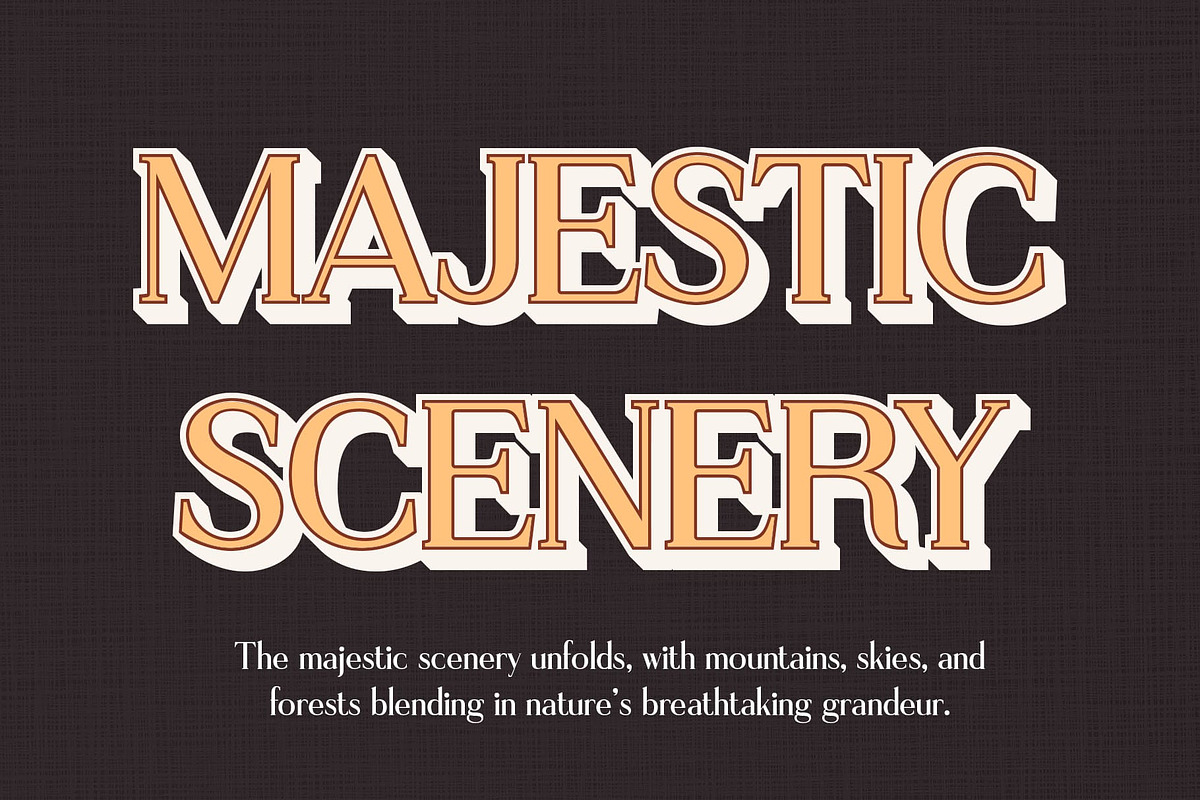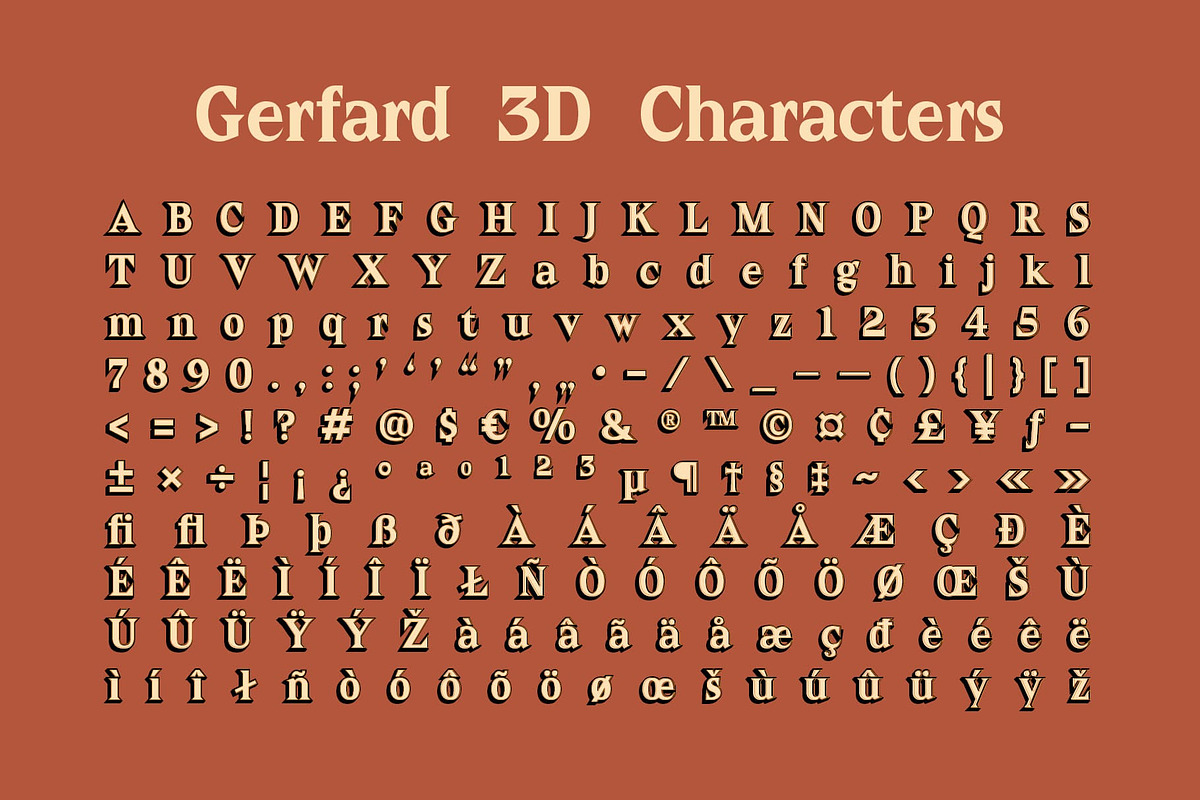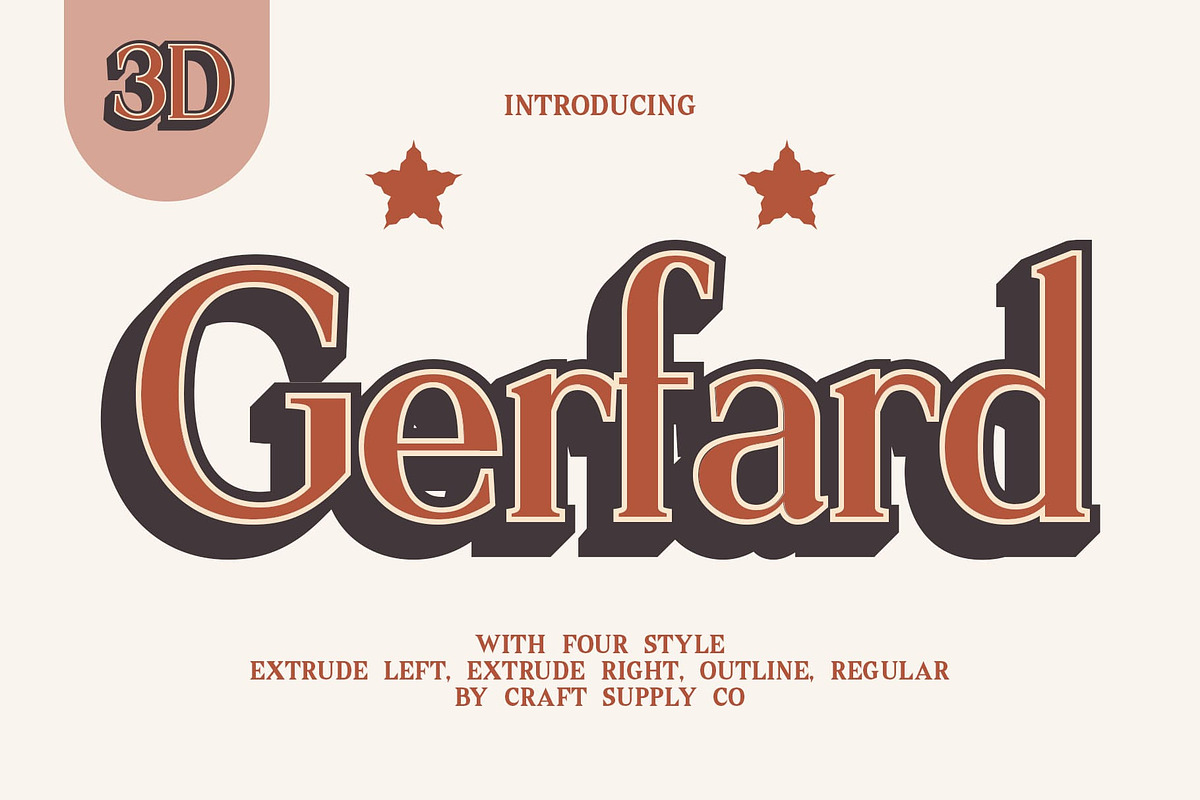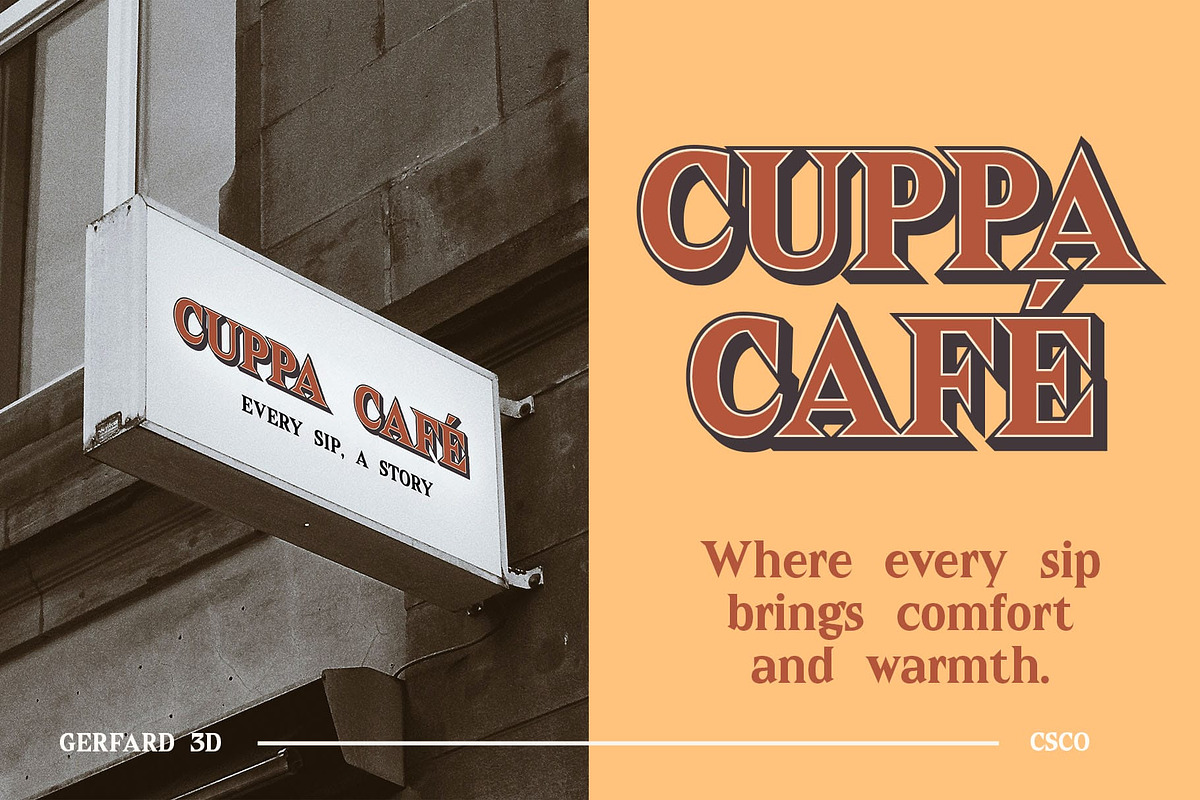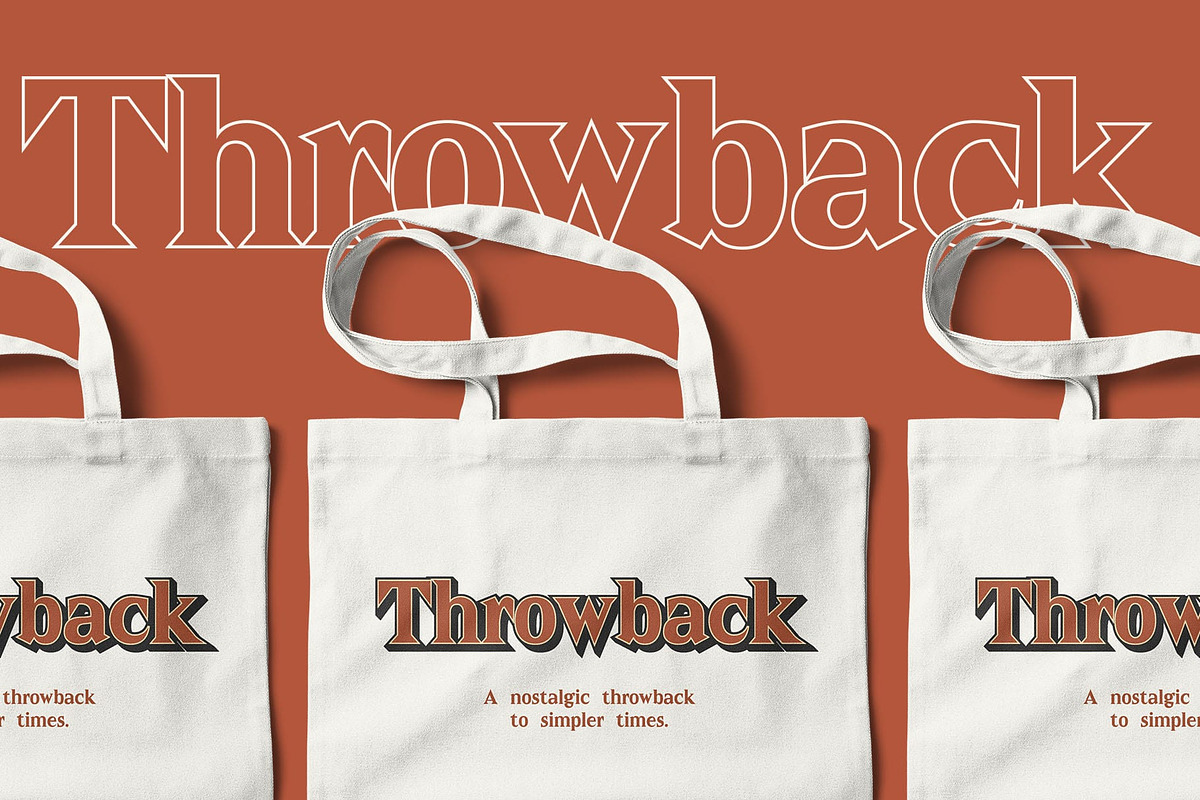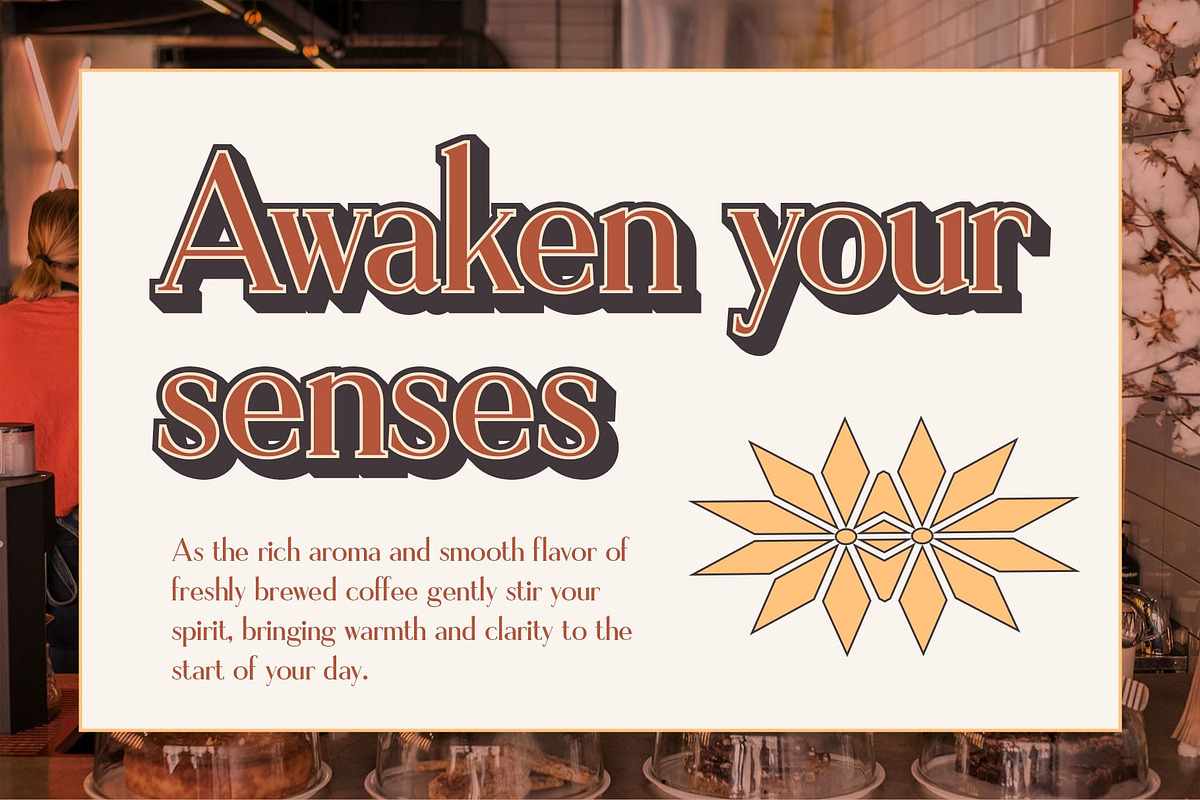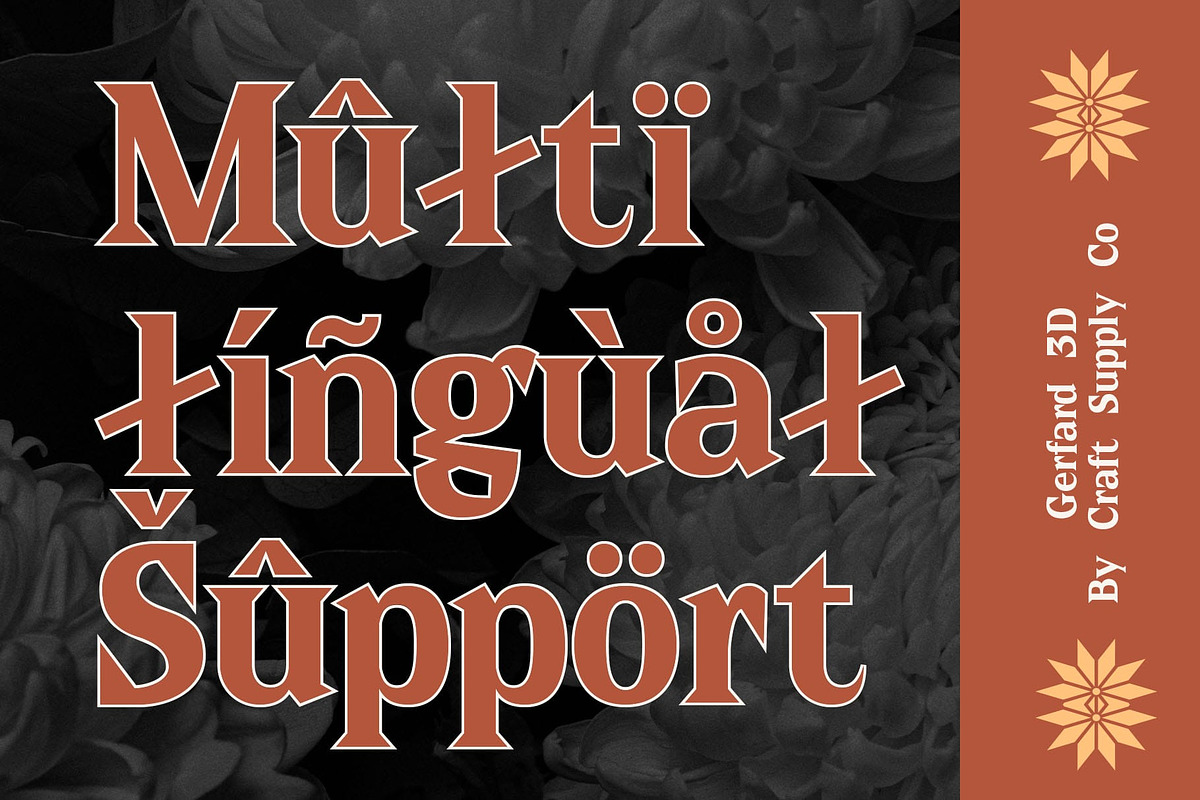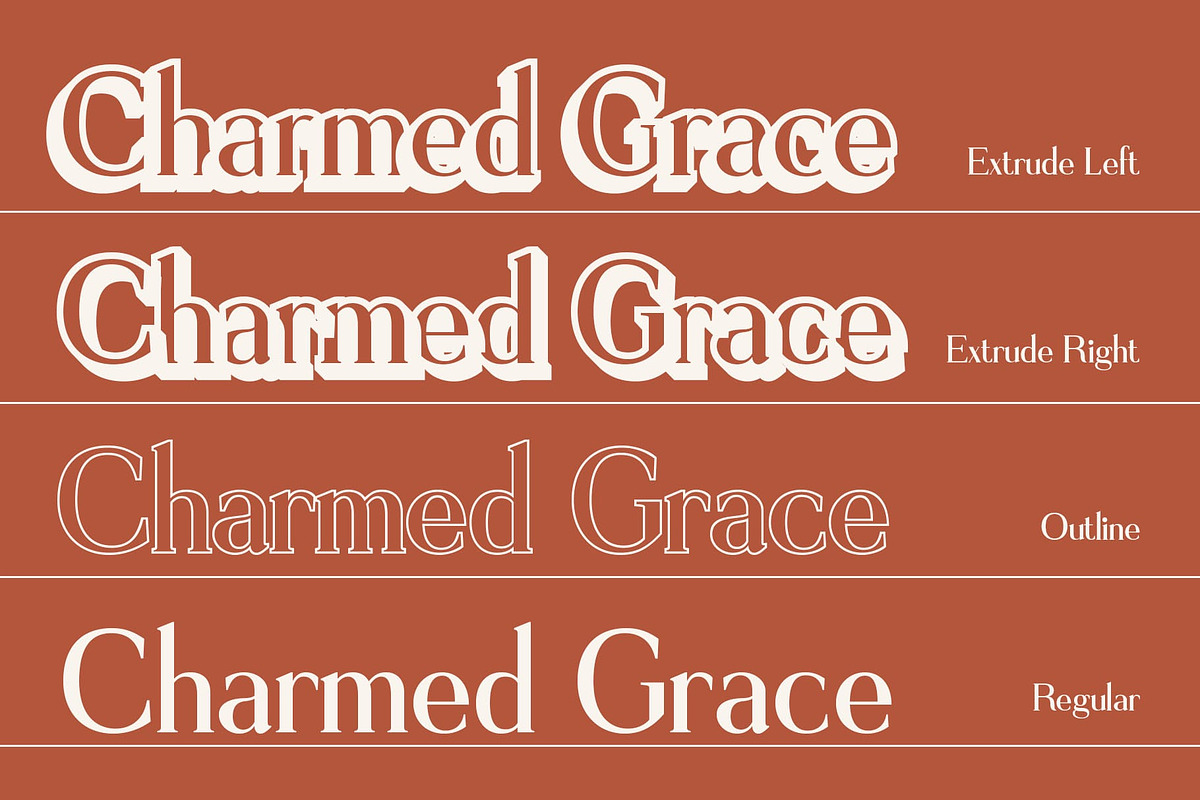
Gerfard 3D
Gerfard 3D Font: Retro Elegance with Dimensional Depth
Bold and Classic Design Gerfard 3D is a bold serif font featuring timeless, retro-inspired shapes. Its classic design radiates sophistication, capturing the charm of vintage typography while remaining versatile for modern applications. The bold letterforms ensure a commanding presence, making it ideal for impactful headlines and standout visuals.
Striking 3D Effect The addition of a striking 3D effect breathes life into the font, adding depth and dimension. This unique feature enhances its visual appeal, creating a sense of movement and richness that draws the eye. Whether used in print or digital designs, Gerfard 3D ensures text feels dynamic and engaging.
Perfect for Nostalgic and Bold Projects Gerfard 3D’s retro aesthetic makes it an excellent choice for projects aiming to evoke nostalgia, such as vintage-themed posters, classic branding, or editorial designs. Its bold style and dimensional effect also make it suitable for modern designs that require a touch of timeless elegance with a contemporary twist.
Versatile and Memorable Typography This font is perfect for logos, advertising, packaging, or any design that needs to stand out while retaining a sophisticated, retro vibe. Its combination of bold serifs and 3D depth ensures Gerfard 3D leaves a lasting impression.